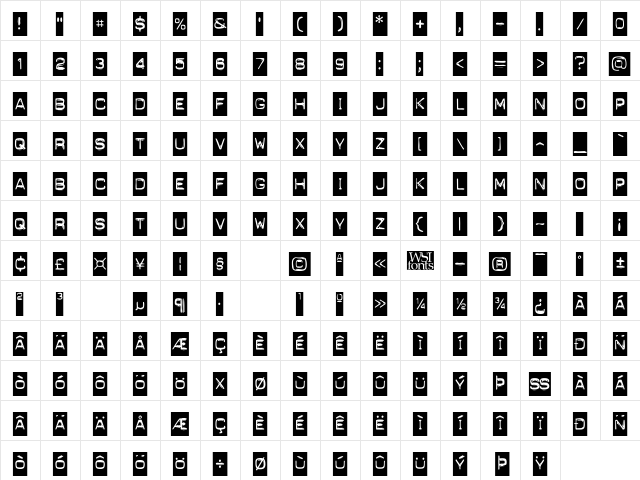
Blackout Regular
Design Context for Blackout
Blackout is a composed and adaptable typeface that performs quietly and consistently across a wide range of design contexts.